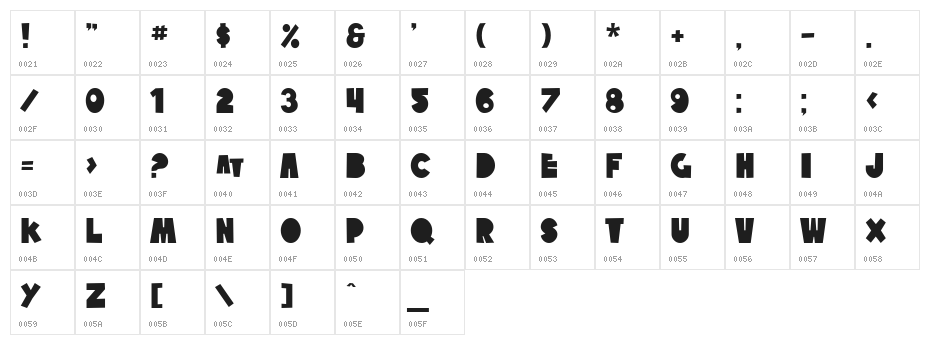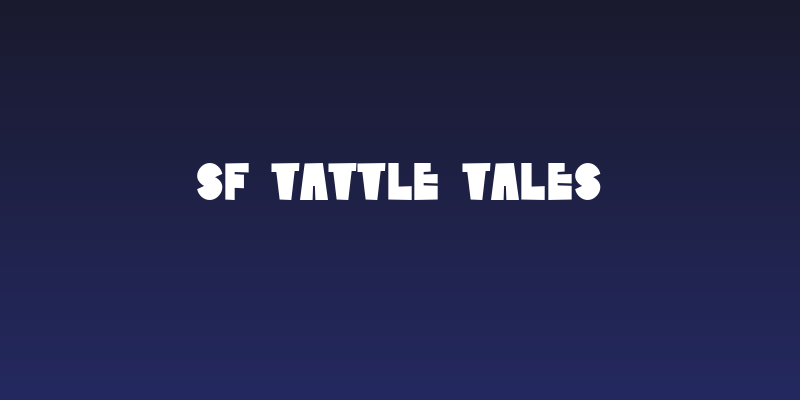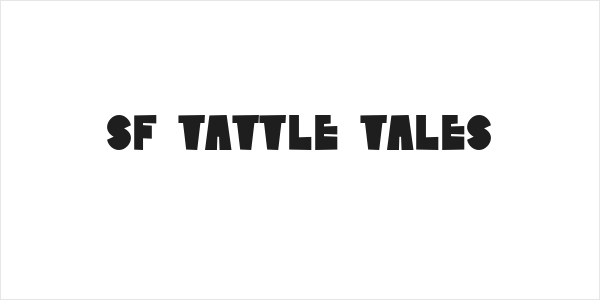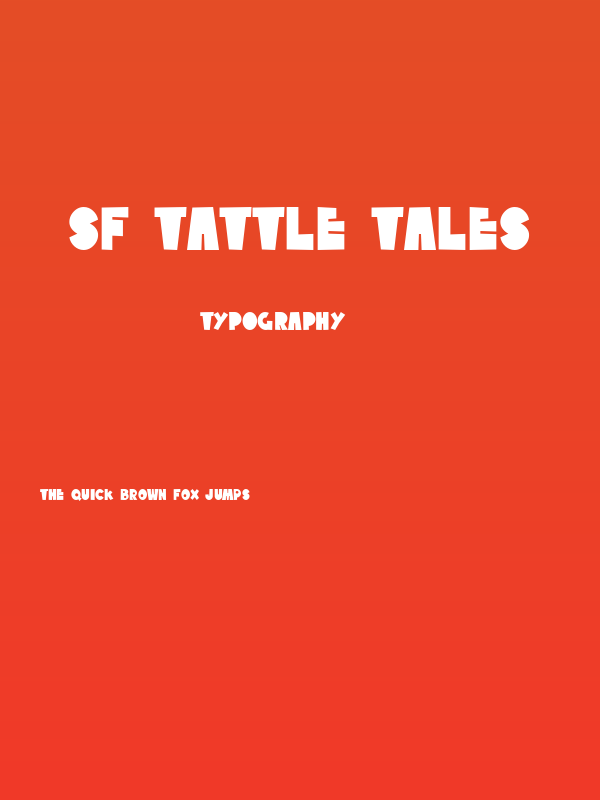
SF Tattle Tales Font
SF Tattle Tales Description
This font features a bold and playful design with exaggerated geometric shapes and thick strokes. The characters are highly stylized, with a strong emphasis on circular and angular elements, creating a sense of movement and energy. The uppercase and lowercase letters maintain a consistent style, with wide, blocky forms that convey a sense of strength and impact. The numbers and special characters follow the same design principles, ensuring a cohesive look across all glyphs. This font's unique style makes it stand out, offering a modern twist on traditional bold typefaces.
| Proposed Projects | Ideal for children's books, playful branding, posters, and eye-catching headlines. |